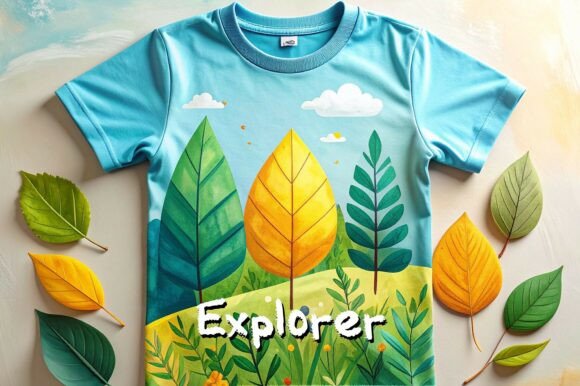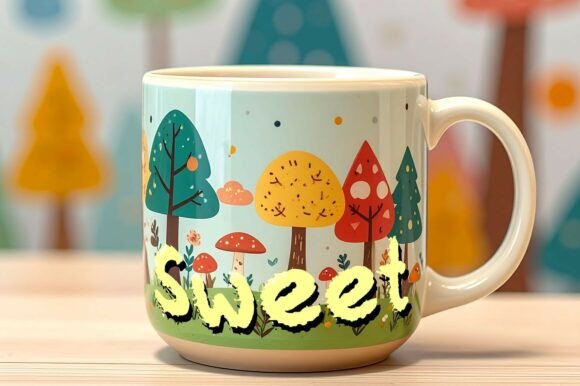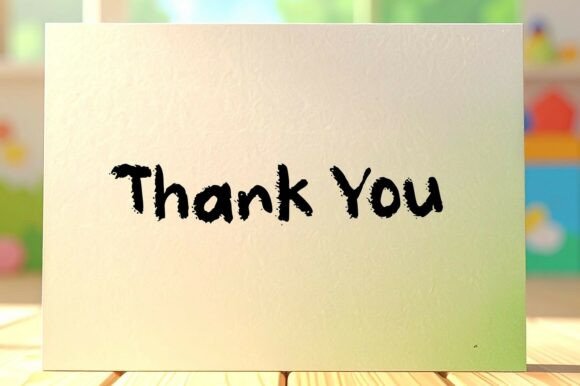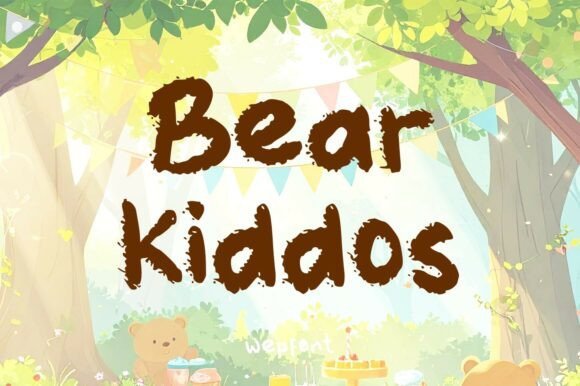
Brightening Up Your Designs: The Whimsical Charm of Bear Kiddos Font
As a designer, have you ever stumbled upon a font that instantly brings a smile to your face and transports you to a world of childhood wonder? For me, that moment came when I discovered Bear Kiddos Font. Its soft, rounded edges and bouncy baseline are the perfect antidote to even the most mundane design tasks.
Bear Kiddos Font is a display font designed specifically for children’s themes, bringing a heartwarming, innocent, and cheerful charm to any creative project. Whether you’re working on a children’s book title, toy packaging, or nursery decor, this font is a valuable addition to your design arsenal. Its friendly appearance and rounded letterforms evoke the joy and innocence of kids and parents alike, making it an instant favorite among designers.
Bear Kiddos Font Key Features
- Font Family: Bear Kiddos is a fun, playful sans-serif font family designed for kids and children’s content.
- Character Set: Includes a wide range of characters, including uppercase and lowercase letters, numbers, punctuation marks, and special characters.
- Unique Characteristics: Bear Kiddos features a distinctive, rounded design with a friendly and approachable feel, making it perfect for children’s books, educational materials, and other kid-friendly content.
Bear Kiddos Font Review
At first glance, Bear Kiddos Font seems like the perfect addition to any kids’ theme project. The font is designed to resemble children’s artwork, complete with scribbles and colorful scrips. The overall aesthetic is playful and energetic ✨.
One of the standout features of Bear Kiddos Font is its versatility. It can be used for a variety of applications, from children’s book covers to educational materials. The font also comes in a range of weights, allowing designers to adjust the level of playfulness to suit their needs.
However, there are some limitations to consider ⚠️. The font may not be suitable for projects that require a high level of sophistication or elegance. Additionally, the font’s playful nature may make it difficult to read in certain contexts.
Here are some specific pros and cons:
- ✨ Versatile and suitable for a range of applications
- ✨ Comes in a range of weights for added flexibility
- ⚠️ May not be suitable for sophisticated or elegant projects
- ⚠️ Can be difficult to read in certain contexts
Overall, I would recommend Bear Kiddos Font for designers working on kids’ theme projects or educational materials. However, it’s essential to consider the project’s tone and requirements before selecting this font.
Tips for Getting the Most Out of Bear Kiddos Font
Here are some tips to get the most out of Bear Kiddos Font:
- Use it for playful and fun designs, such as children’s books, party invitations, and social media graphics.
- Pair it with bold and colorful backgrounds to create a playful contrast.
Bear Kiddos Font is perfect for:
- Social media graphics and ads
- Playful website designs